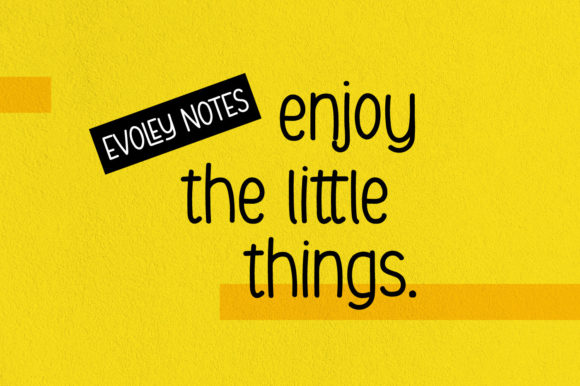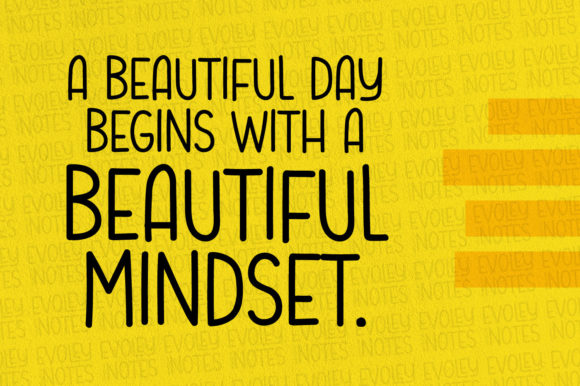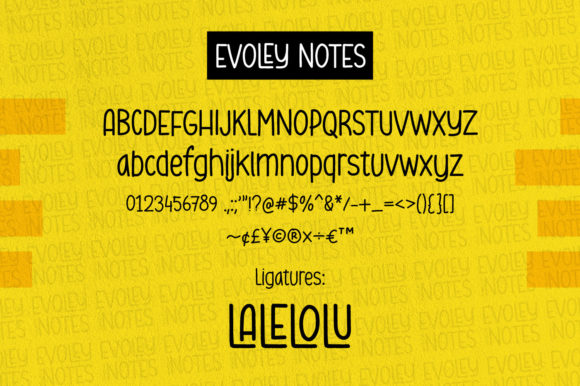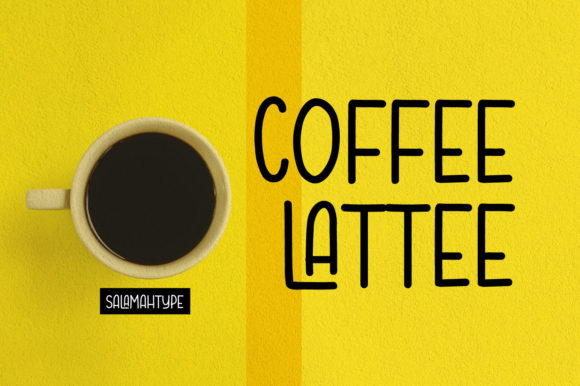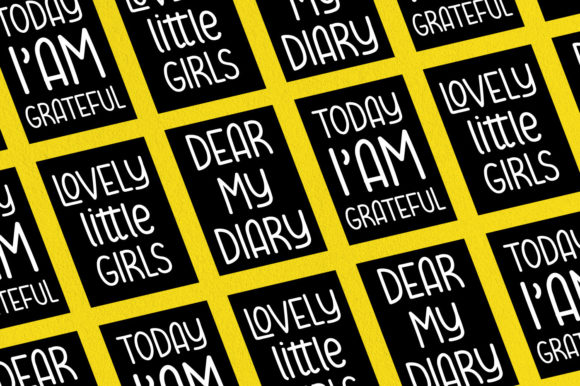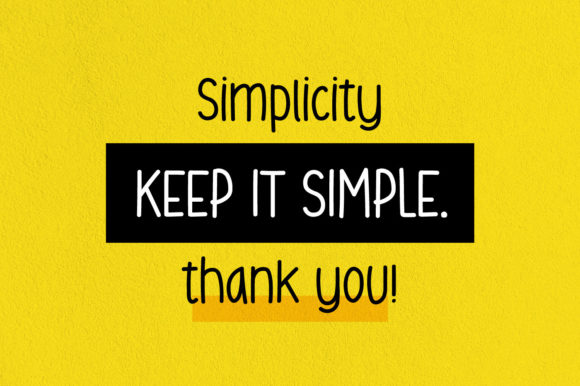
Introduction to Evoley Notes Font Font
Fonts play a crucial role in design, and the Evoley Notes Font font is a typeface that brings both character and versatility to any project. Whether you’re working on a branding project, a website, or a print design, the Evoley Notes Font font offers a unique style that can elevate your work.
Evoley Notes is a simple and adaptable handwritten font.
This font is perfect for quotes, magazines, labels, branding, posters, logos and more .
Key Features of Evoley Notes Font Font
Why Choose Evoley Notes Font Font?
The Evoley Notes Font font is more than just a typeface – it’s a design tool that helps you communicate your message with style and clarity. Its unique character set and versatile design make it suitable for a wide range of applications, from elegant invitations to bold headlines.
With its carefully crafted letterforms and balanced proportions, the Evoley Notes Font font ensures readability and visual appeal across all mediums.
What makes Evoley Notes Font font special?
The Evoley Notes Font font stands out with its unique design, exceptional readability, and versatility across various design applications.